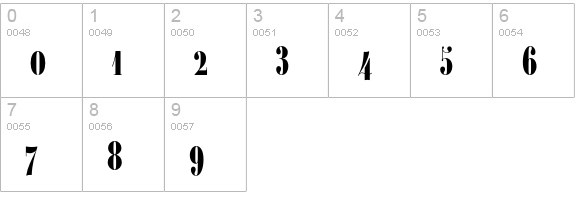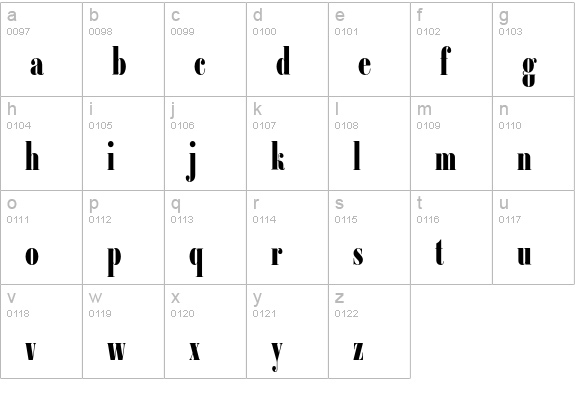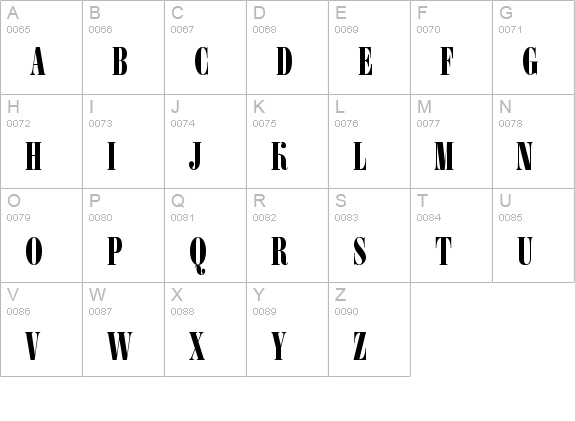
Ambroise Francois Black is a maximum-weight, dramatic variant in the Ambroise typeface family \xE2\x80\x94 well suited to maximum-impact headlines, posters, and packaging.
Ambroise Francois Black font is a sophisticated and elegant typeface that exudes charm and class. With its bold and distinctive letterforms, this font is perfect for creating eye-catching headlines, titles, and logos. The strong presence of Ambroise Francois Black commands attention and adds a touch of luxury to any design project. One of the most appealing aspects of this font is that it is available for free download at FontsMarket.com. This means that designers and creatives can easily access and use Ambroise Francois Black in their projects without any cost. Whether you're working on a branding project, advertising campaign, or personal creative endeavor, Ambroise Francois Black font is a versatile and stylish choice that will elevate your designs to the next level.